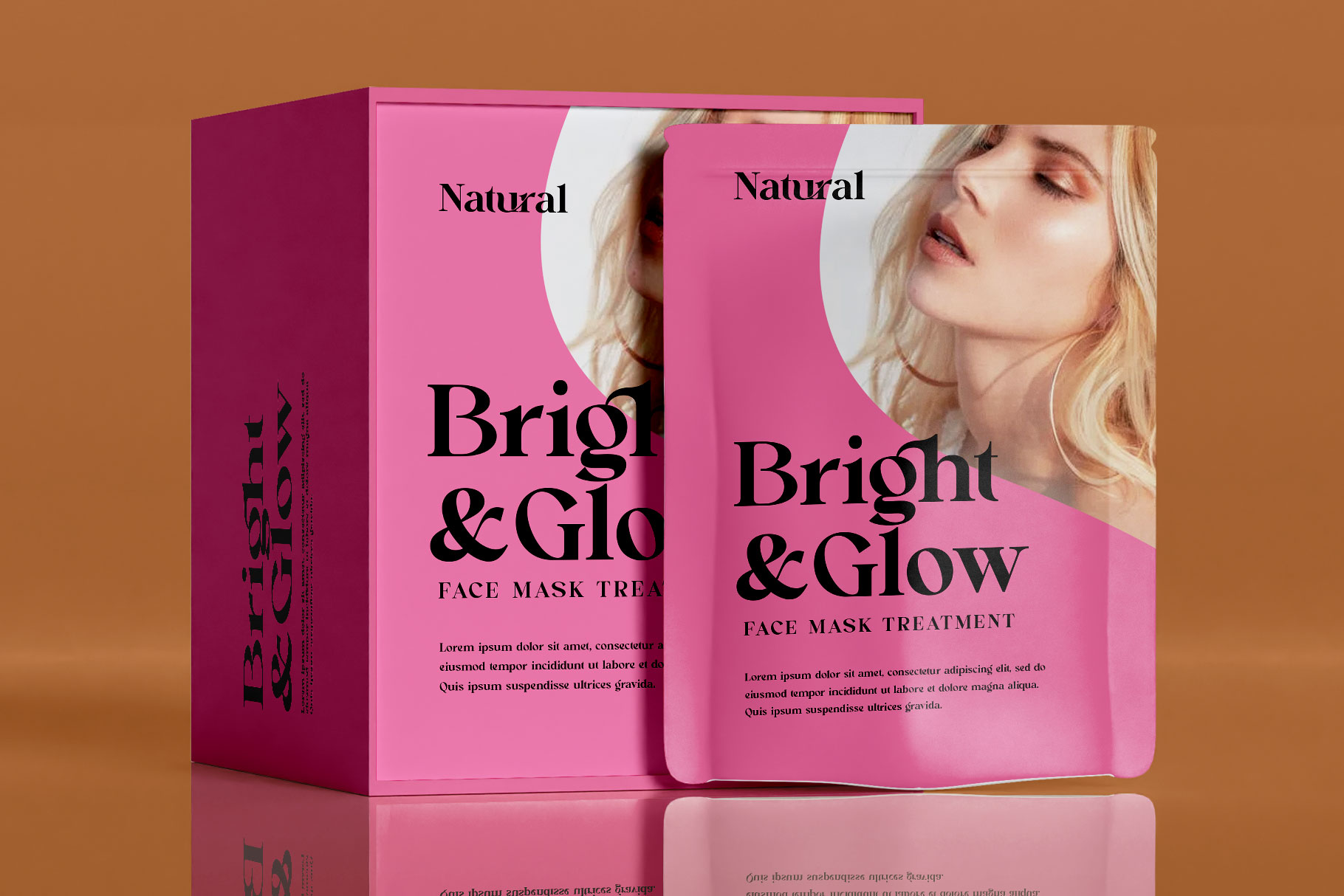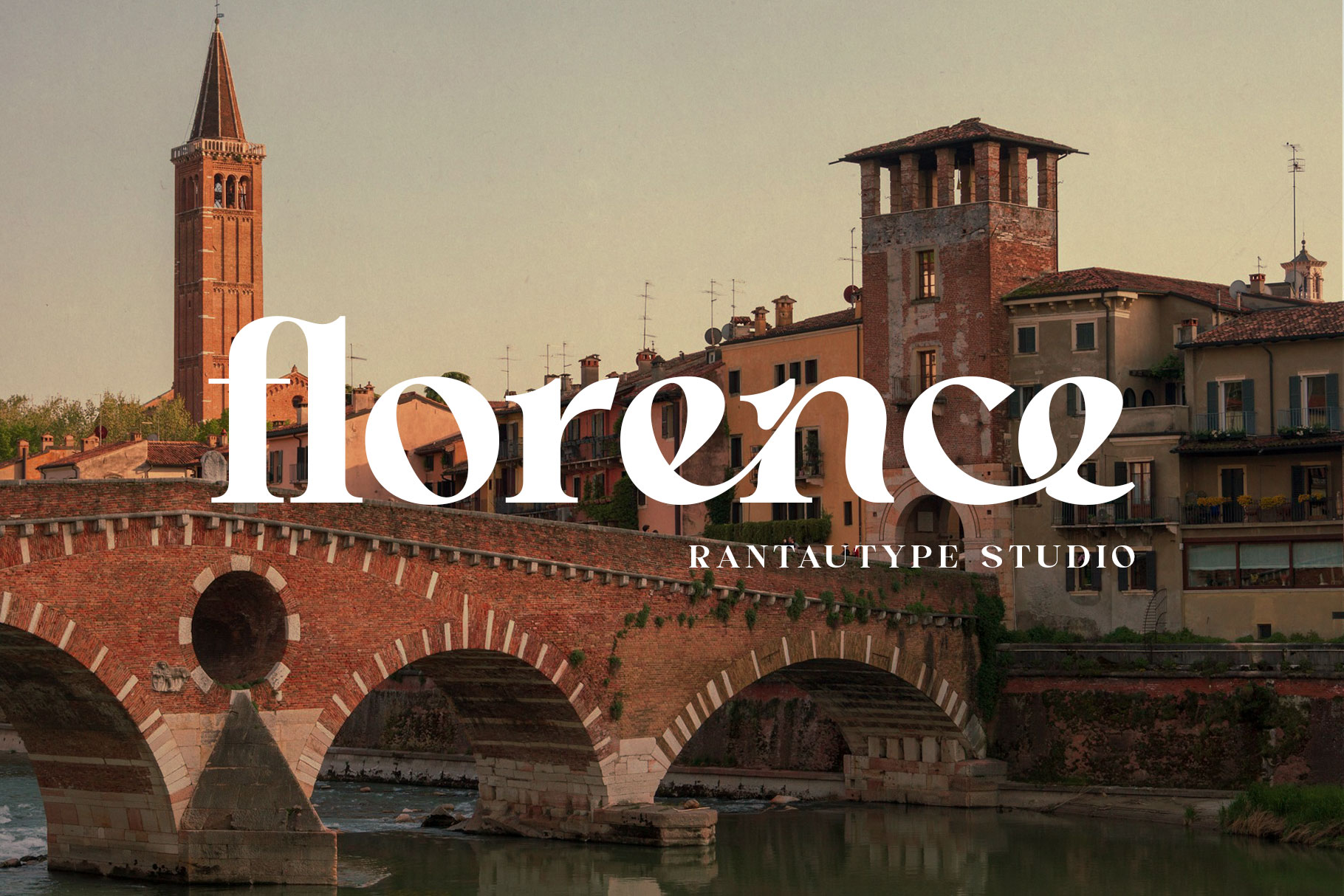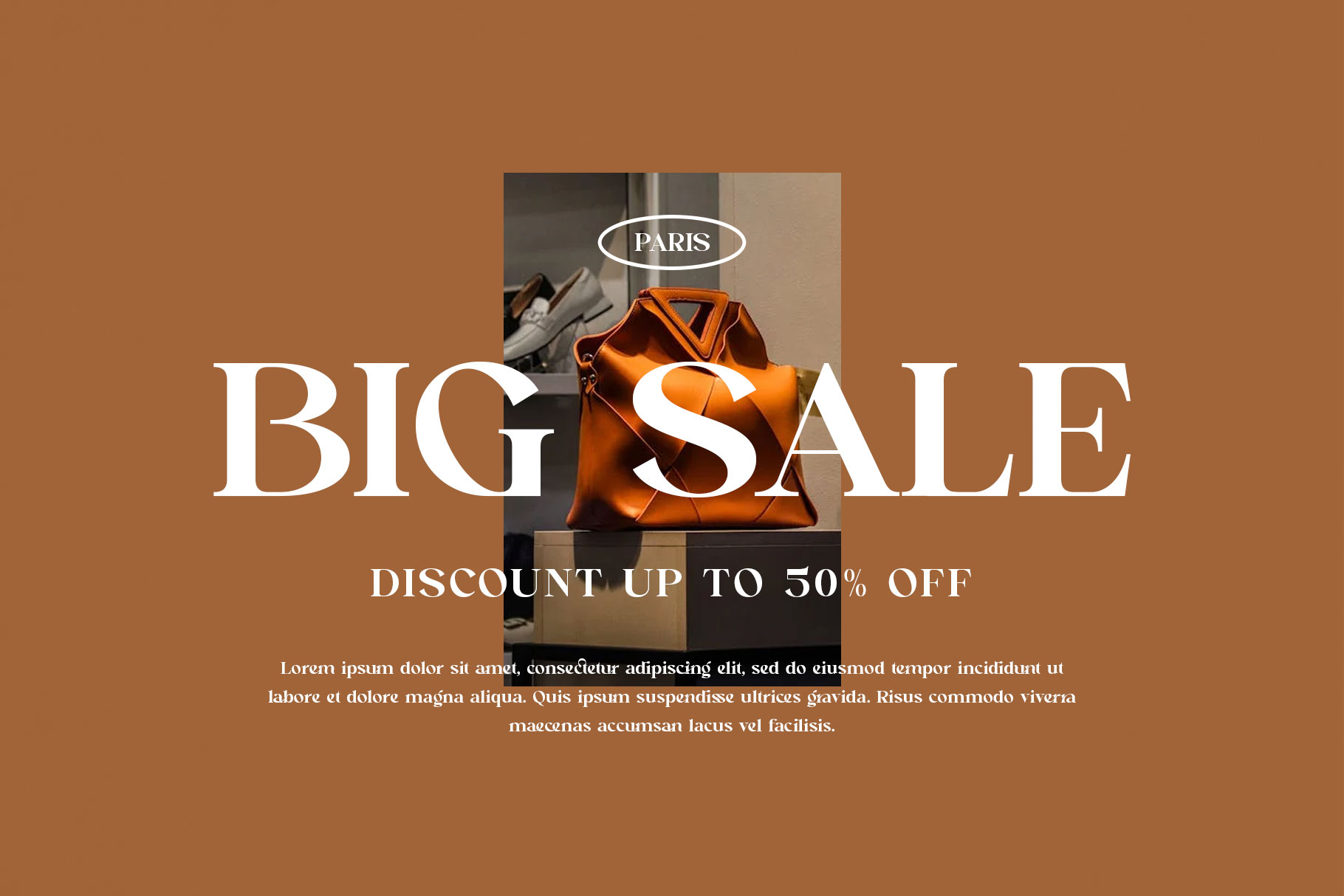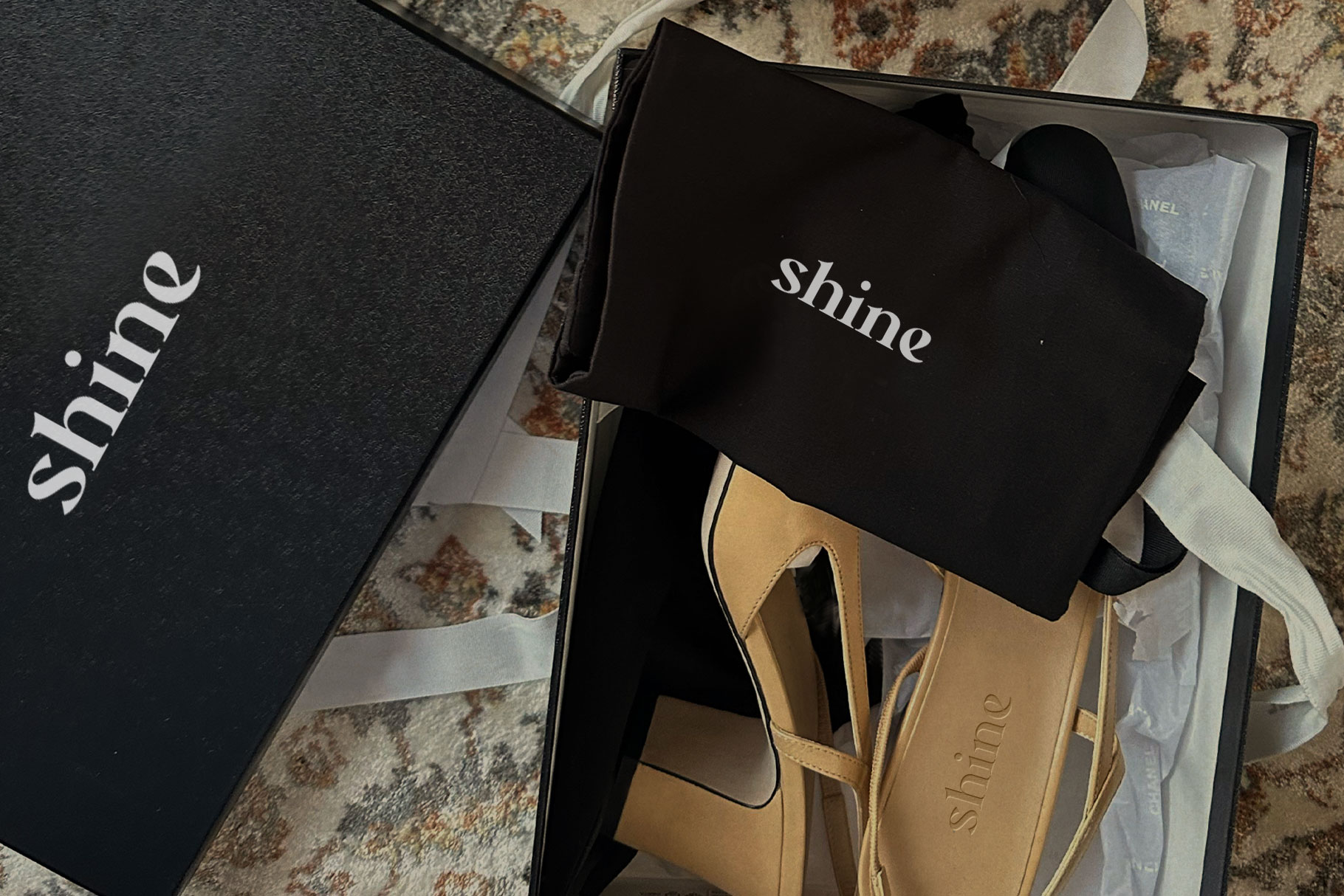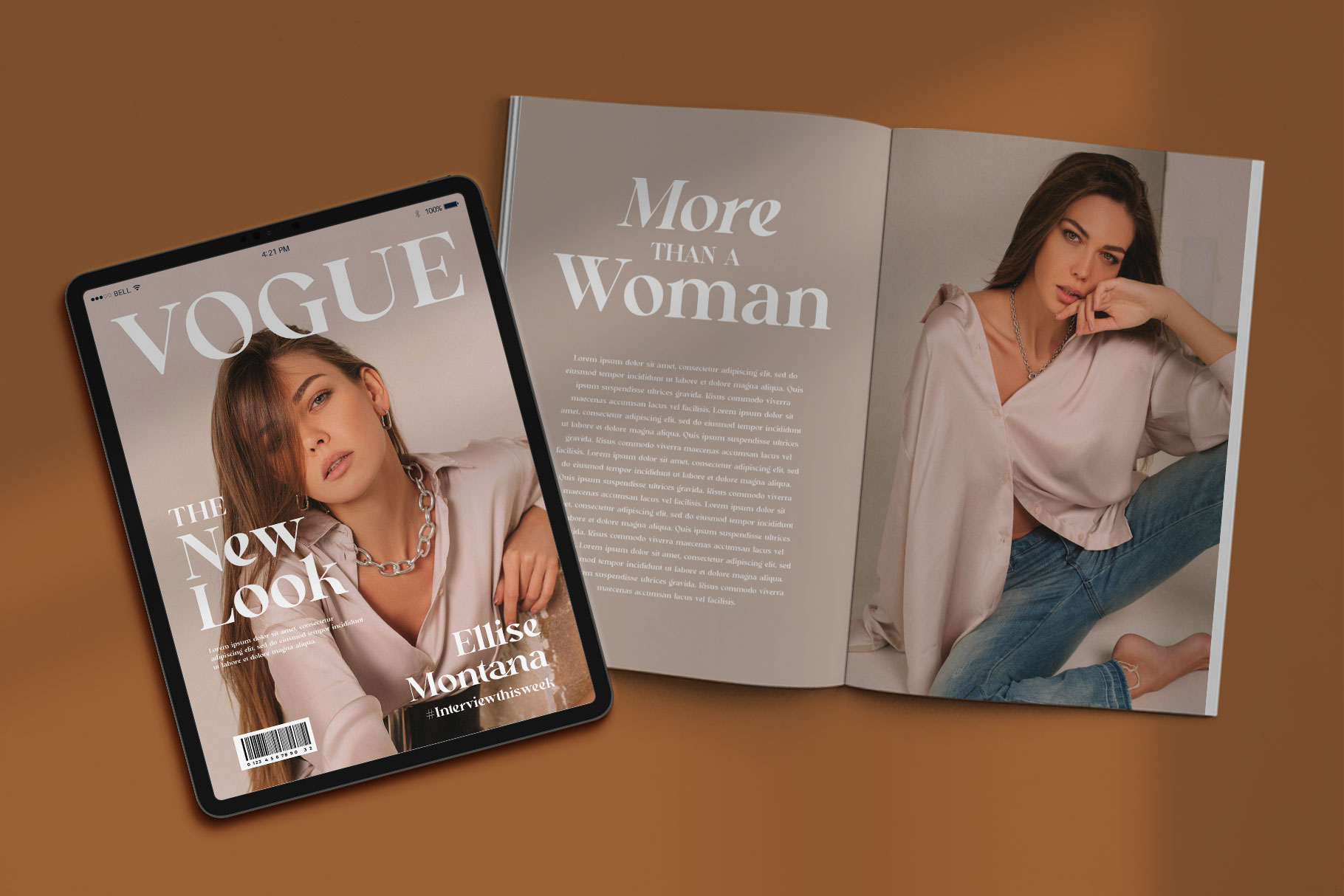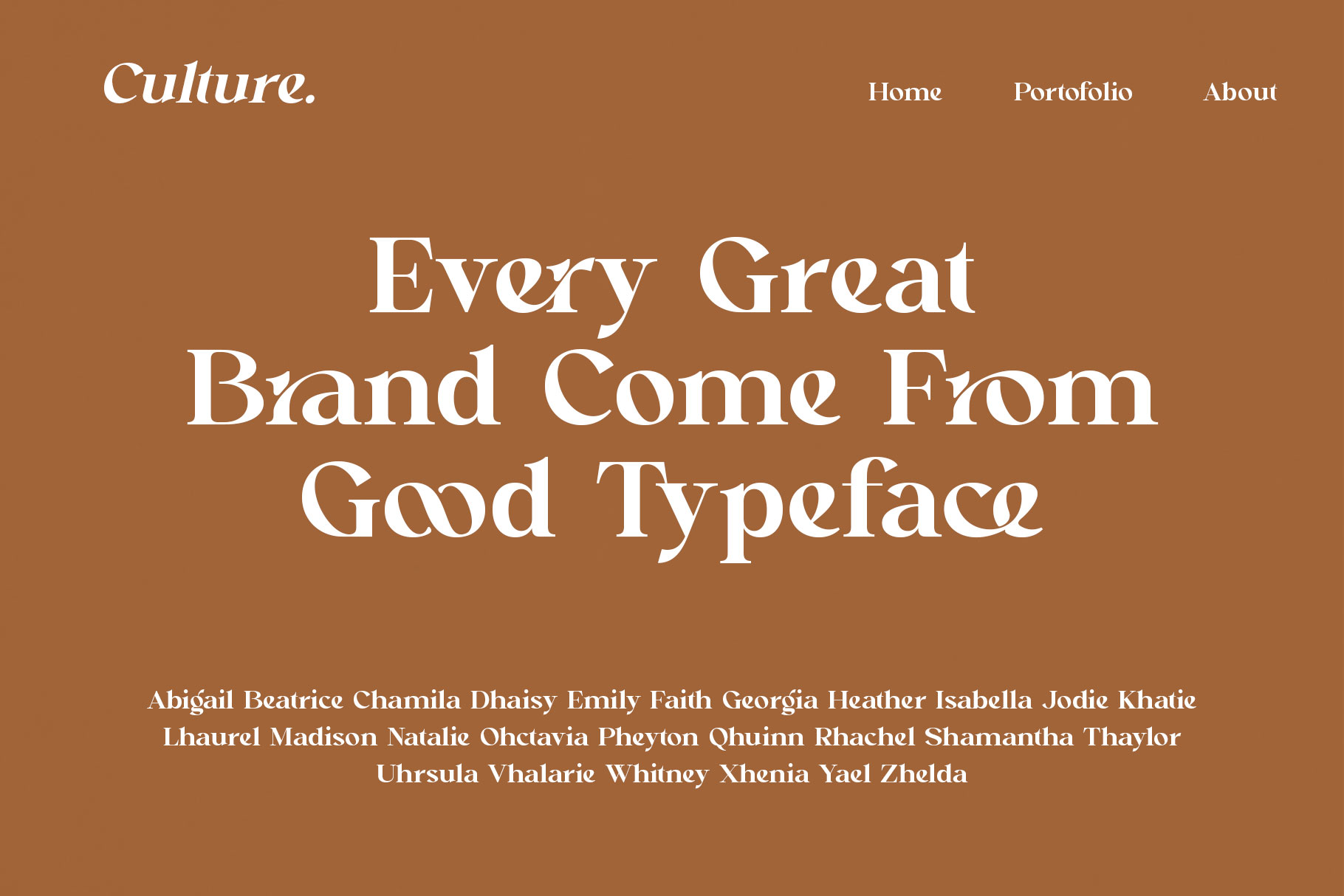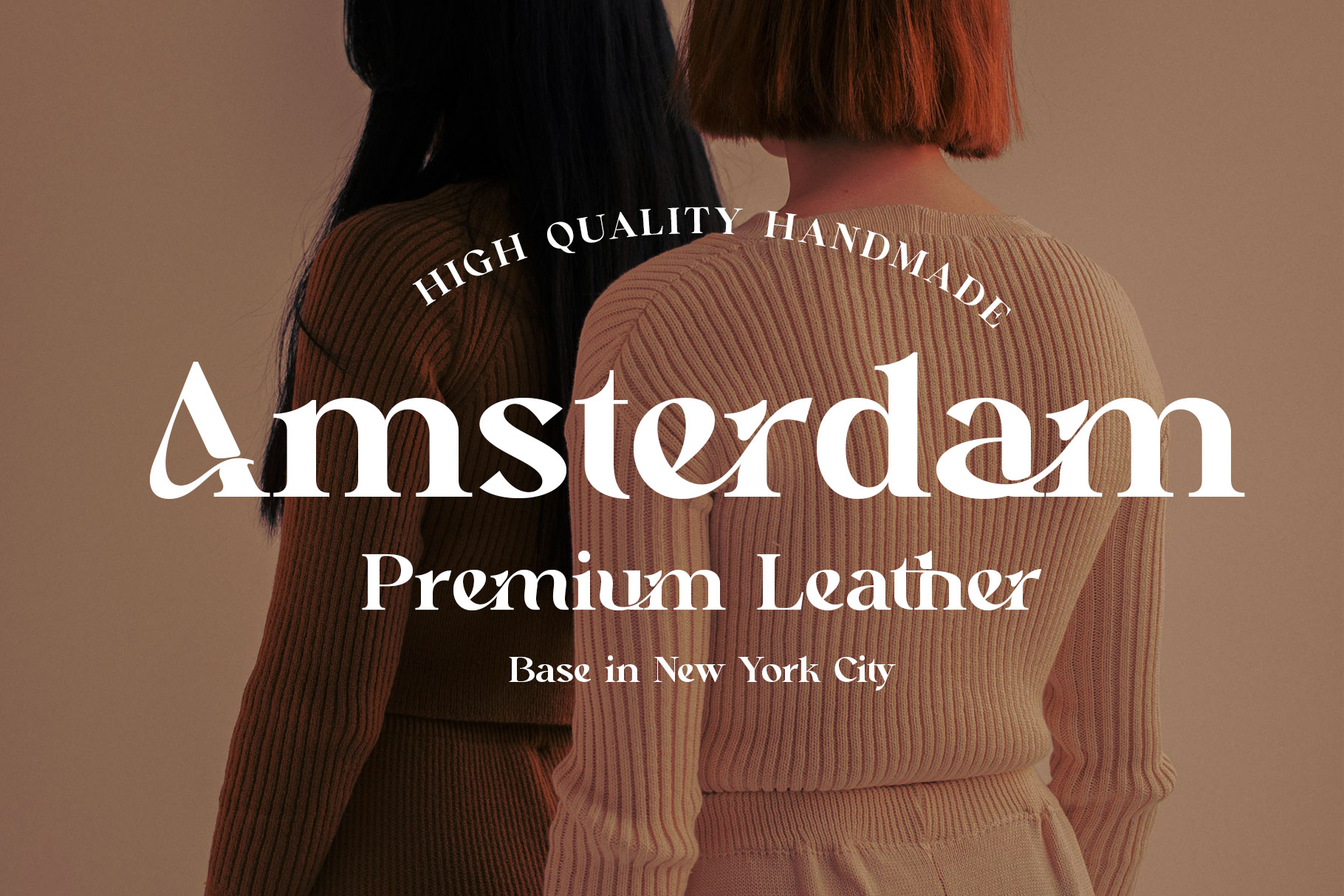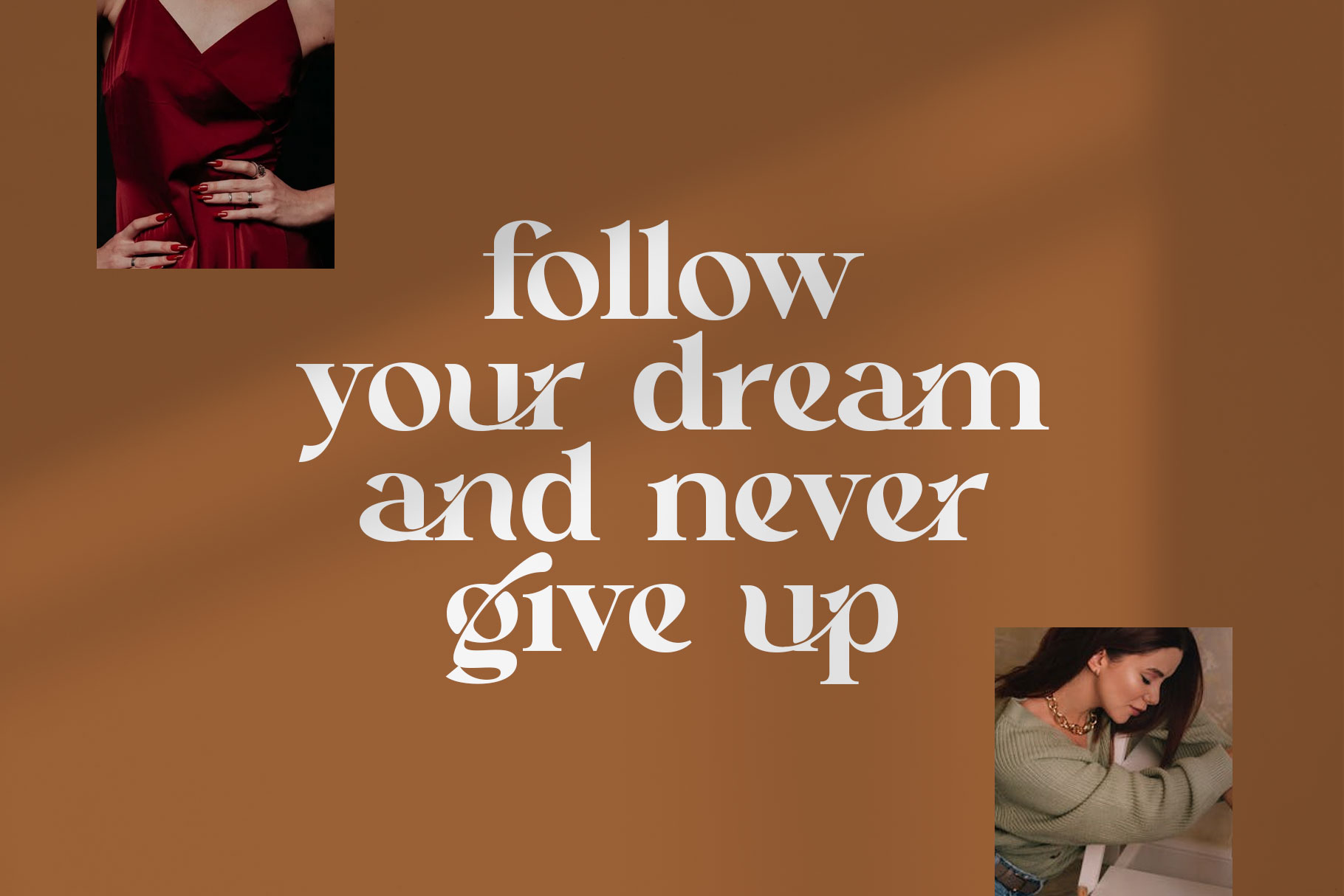
Cenira Bloomer Modern Stylish Serif Font
Create your professional brand with cenira bloomer. Cenira Bloomer is ligature serif font elegant serif with stylish character to create your design project awesome. Cenira Bloomer is a perfectly choice for any creative endeavor, chic, lifestyle design such as logotype, advertisements, watermark on photography, stationery, branding project, display and magazine, invitation, corporate brand, product design, label, business project and many other project with luxury touch.